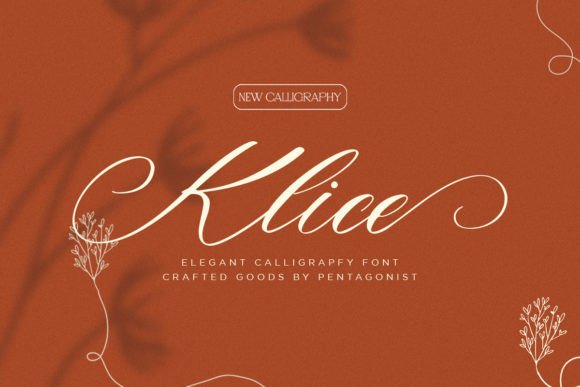
Discover the Klice Font: A Symphony of Elegance and Refinement for Your Creative Endeavors
In a world where visual impact reigns supreme, the Klice Font emerges as a radiant beacon of style and grace, ready to transform your creative projects into masterpieces of elegance. This script font, meticulously crafted by Pentagonistudio, is an ode to timeless beauty, seamlessly blending the allure of classic typography with a contemporary twist.
Immerse yourself in the world of Klice, where letters dance with fluidity and charm, captivating the eyes and stirring the emotions. Its graceful strokes, reminiscent of a calligrapher's skillful hand, evoke a sense of romance and sophistication, making it the perfect choice for wedding invitations, feminine branding, and luxury projects.
With Klice as your creative companion, you'll elevate your designs to new heights, leaving a lasting impression on your audience. Its versatility knows no bounds, effortlessly adapting to a myriad of creative endeavors, from magazine covers and logos to social media graphics and website designs.
Unleash your creativity and elevate your projects with the Klice Font, the epitome of elegance and refinement in the world of typography. Discover the beauty of timeless design and let your creations shine with a touch of sophistication.